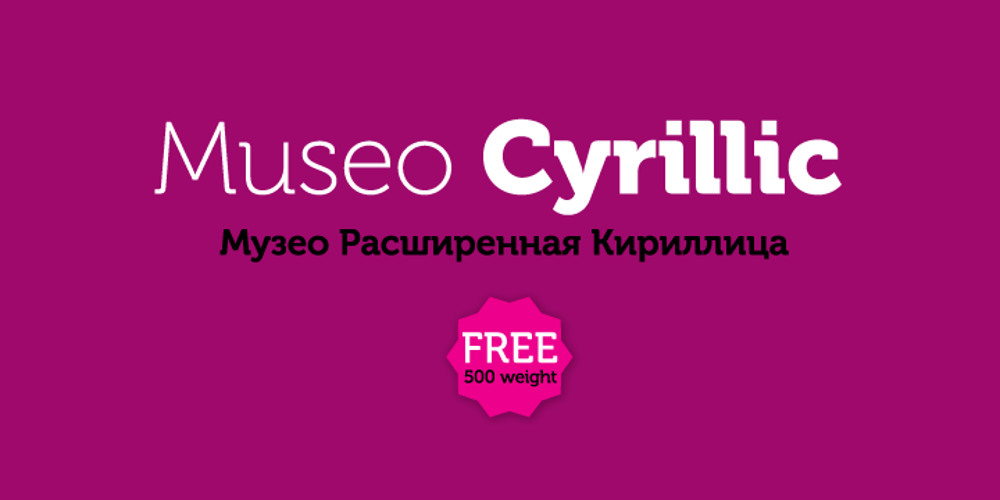
Museo Cyrillic
Museo Cyrillic font
Museo Cyrillic Font Family was designed by Jos Buivenga and published by exljbris. Museo Cyrillic contains 10 styles and family package options. Museo is a contemporary semi-slab serif font family designed by Jos Buivenga. His love for the uppercase letter U inspired this unique set of fonts: “In a daydream I saw the top of both stems bended into semi-slab serifs. From this principle I worked out the rest of the uppercase letters. My first intention was to make it an all-caps display font but after a few months I changed my mind. I wanted it to be a bit more versatile, so I decided to add lowercase and adjusted spacing and kerning to increase legibility.” The Museo font family supports Western and Central European languages and a variety of OpenType features including case sensitive forms, ligatures, contextual alternatives, stylistic alternates, fractions and proportional/tabular figures. The Museo font family has five weights (100 300 500 700 900). Museo is a trademark of Exljbris Font Foundry and may be registered in certain jurisdictions.